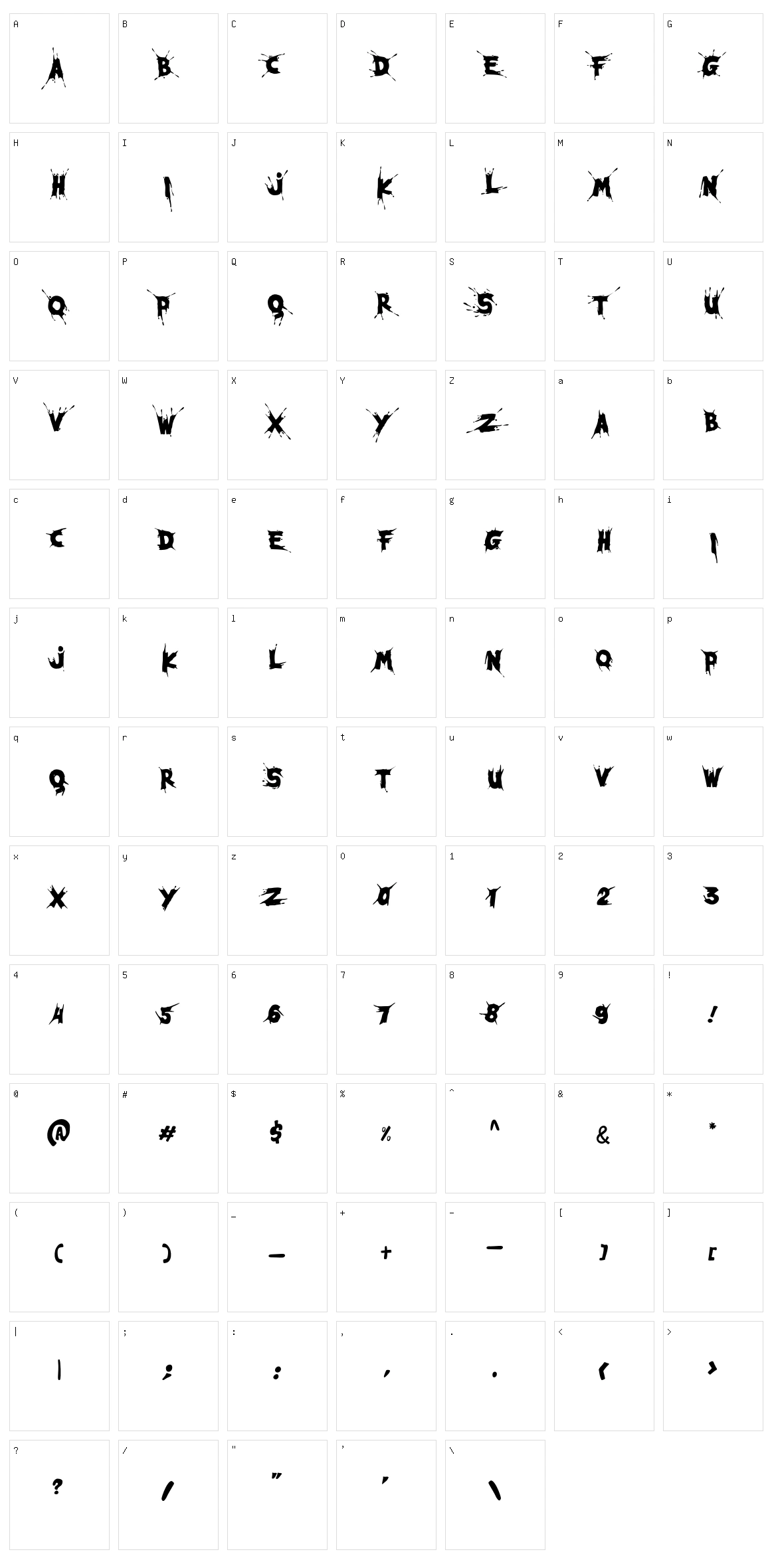
The free font Sengatz is carefully designed by Adevio Studio, showcasing a thoughtful balance of creativity and usability and falls under the Horror font style. When you download the ZIP file, it contains only 23.52 KB of font files, making it lightweight and quick to download. Please review the license details below to understand permitted usage and distribution rights. If license information is not available, we recommend using this font for personal projects only or contacting the author directly for commercial usage permissions.